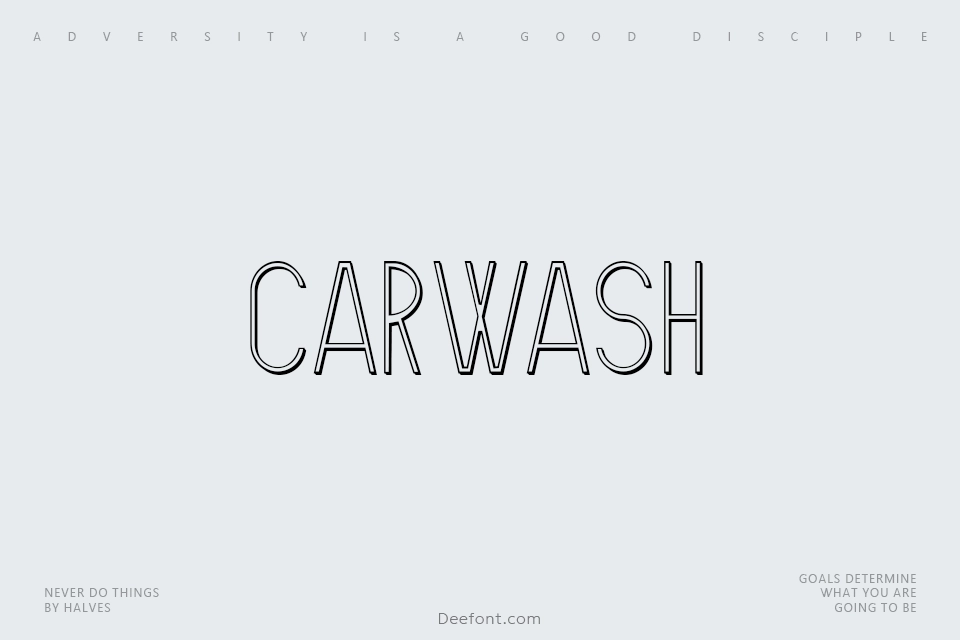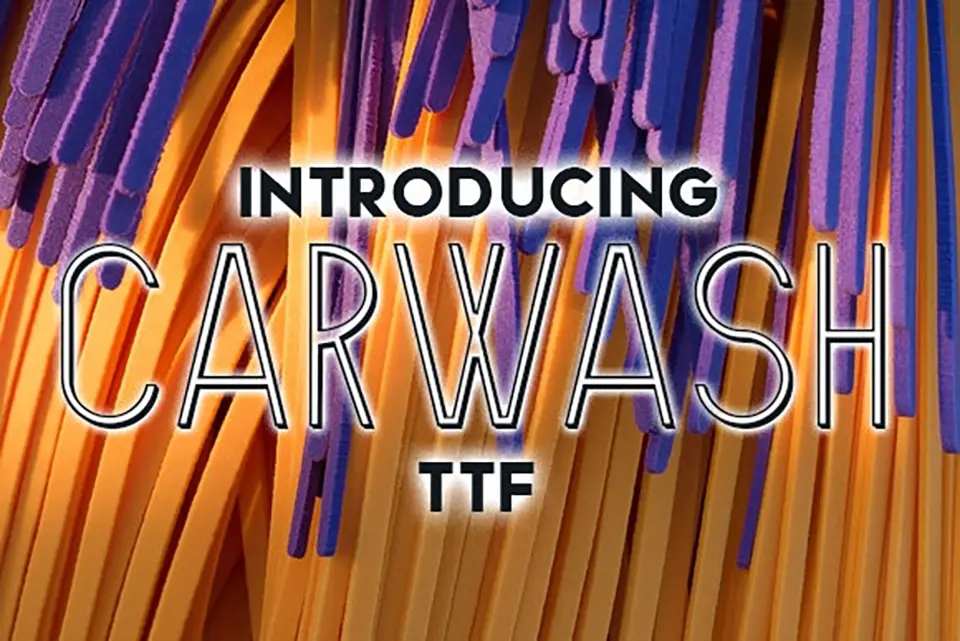
Carwash Font
The Carwash font is a vibrant and playful display typeface with bold, decorative letters that evoke a retro aesthetic. Designed for eye-catching headlines and creative projects, this fancy font combines nostalgic charm with contemporary flair, making it ideal for vintage-inspired designs, posters, and entertainment graphics that demand personality and visual impact.
Designed by:Vladimir Nikolic